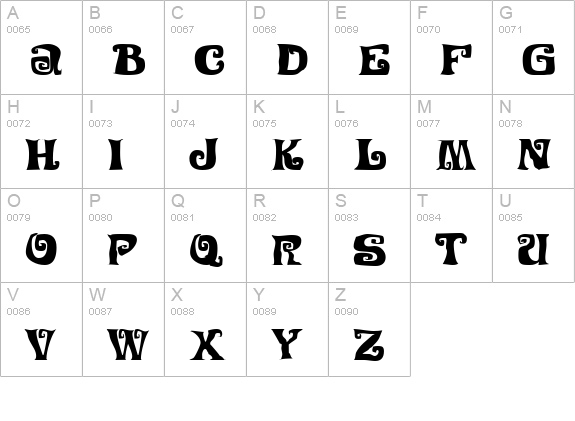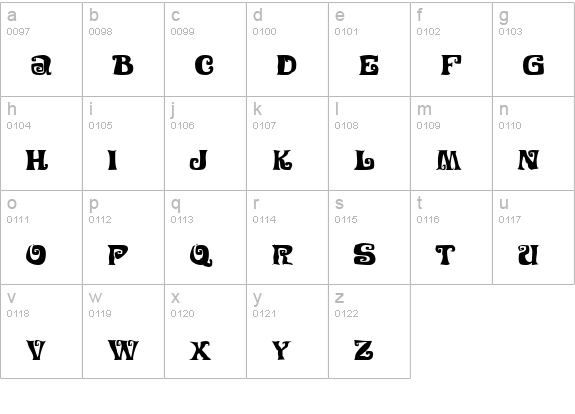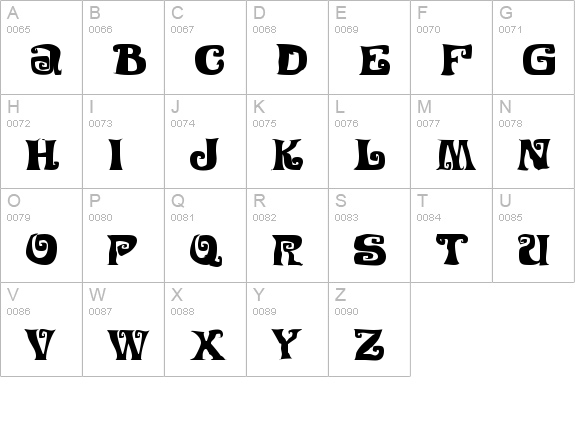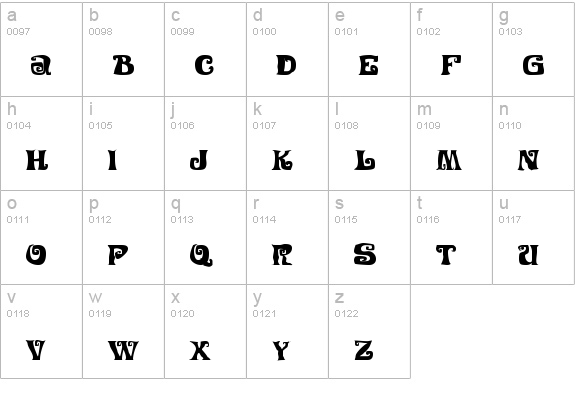
Festival Nights JL Font Details
Festival Nights JL font is a whimsical and enchanting typeface that is perfect for adding a touch of magic to your designs. With its playful curves and stylish flourishes, this font exudes a festive and celebratory vibe that is sure to captivate your audience. Whether you're creating invitations, posters, or greeting cards, Festival Nights JL font will bring a sense of joy and excitement to your projects. Best of all, Festival Nights JL font is available for free download at FontsMarket.com. This means you can easily access this delightful font and start using it in your designs without any cost. Don't miss out on the opportunity to add a touch of whimsy to your creations with Festival Nights JL font!